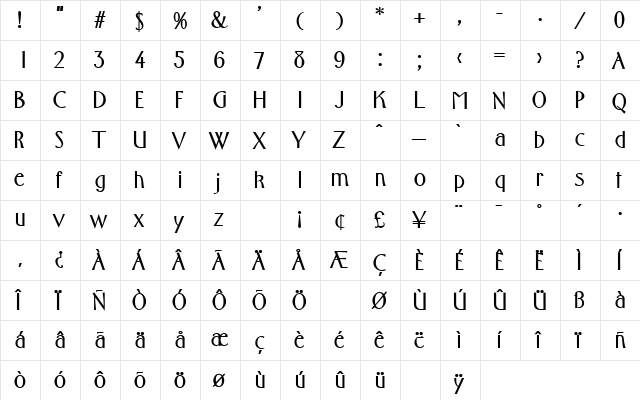
Florentine Bold
Design Context for Florentine Typeface
Florentine is a composed and adaptable typeface that performs quietly and consistently across a wide range of design contexts. Its bold stroke weight gives it real presence on the page.